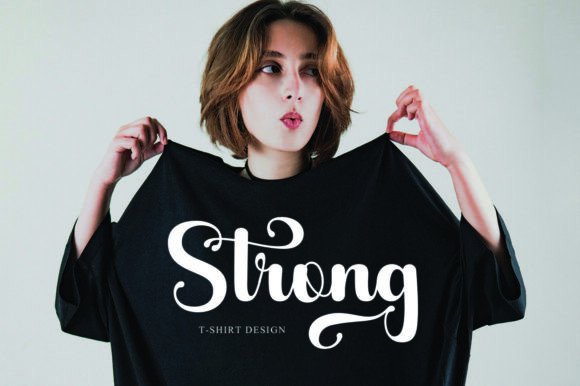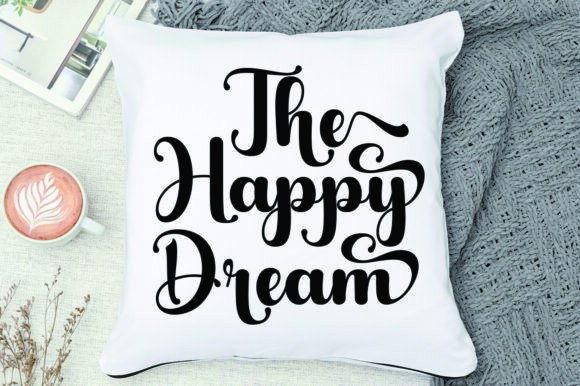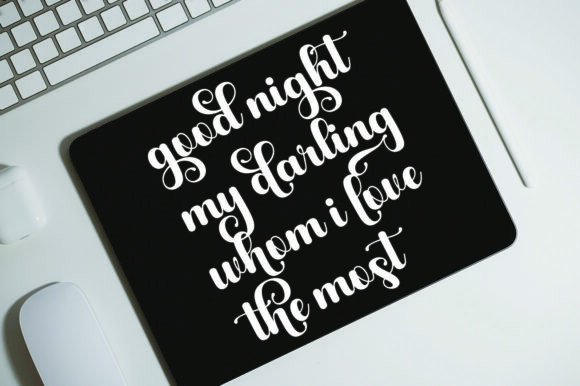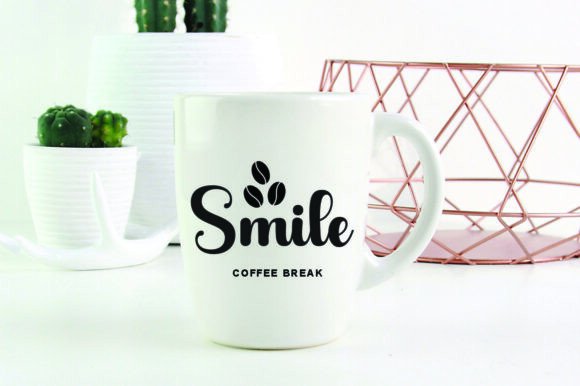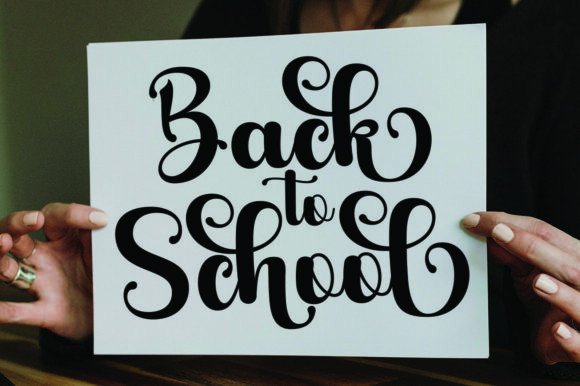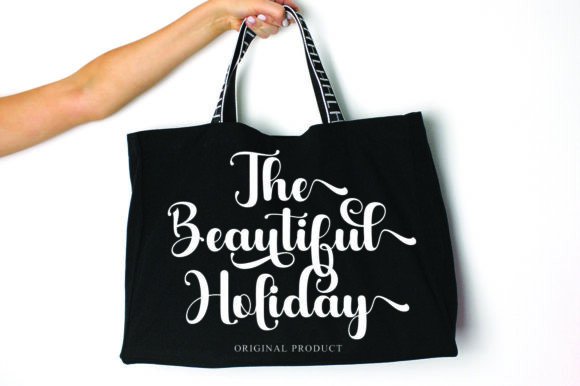
I still remember the frustration of working on a wedding invitation project, searching for the perfect font to convey elegance and sophistication. My client wanted something that exuded softness and femininity, but I was coming up blank. That’s when I stumbled upon Black Virtha, a handwritten font that instantly captured the essence of what I was looking for.
With its graceful strokes and delicate touch, Black Virtha quickly became my go-to font for a range of design projects. In this article, I’ll share my experience with this beautiful font, its features, and how to make the most of it in various design platforms.
An Honest Review of Black Virtha
• ✨ Soft and elegant appearance, perfect for feminine designs
• ✅ Highly versatile, suitable for branding, titles, wedding designs, invitations, signs, logos, labels, and more
• 💫 Beautifully crafted strokes that add a touch of sophistication to any design
• 🎨 Excellent for creating visually appealing headings and titles
While Black Virtha is an exceptional font, there are a few things to keep in mind:
• ⚠️ May not be suitable for very small font sizes, as some details may get lost
• 🤔 Limited availability of stylistic alternates, which may limit creative experimentation
A Practical Guide to Using Black Virtha
The Story Behind Black Virtha
Black Virtha was designed with the intention of creating a font that embodies elegance and sophistication. The designer aimed to craft a font that would be perfect for wedding designs, invitations, and other feminine projects. With its beautiful strokes and delicate touch, Black Virtha has become a popular choice among designers and crafters.
Q: Is Black Virtha suitable for body text?
A: While Black Virtha is an excellent font, it’s primarily designed for headings and titles. For body text, you may want to consider a more readable font.
Q: Does Black Virtha have any OpenType features?
A: Yes, Black Virtha has a range of OpenType features, including ligatures and stylistic alternates.